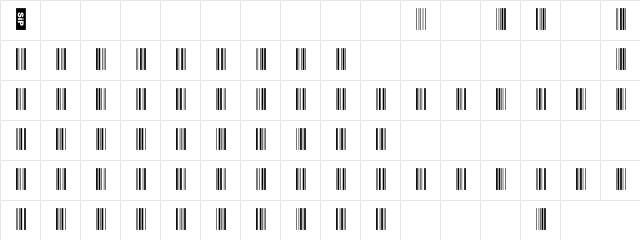
K-O-D-E-39 Hidden Regular
Design Context for K-O-D-E-39 Hidden Typeface
K-O-D-E-39 Hidden takes a measured approach to typography — its balanced proportions and neutral character make it a reliable workhorse for both digital and print work.